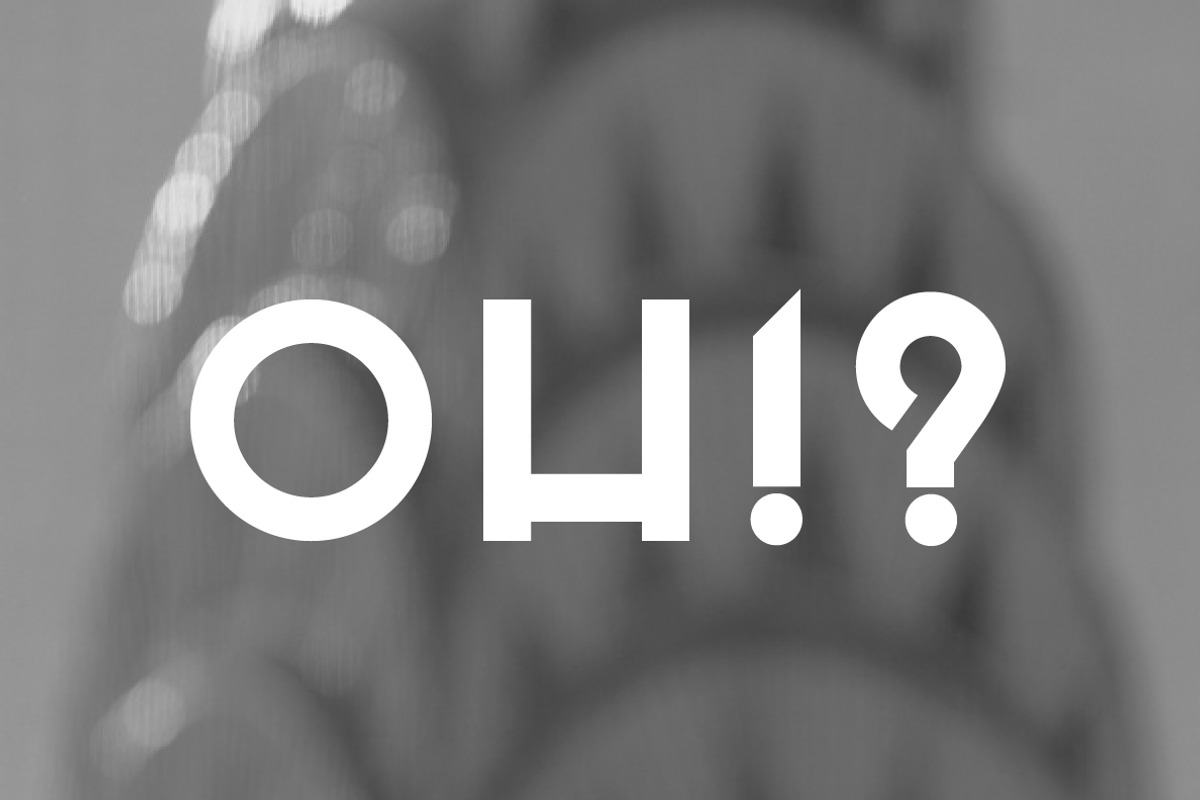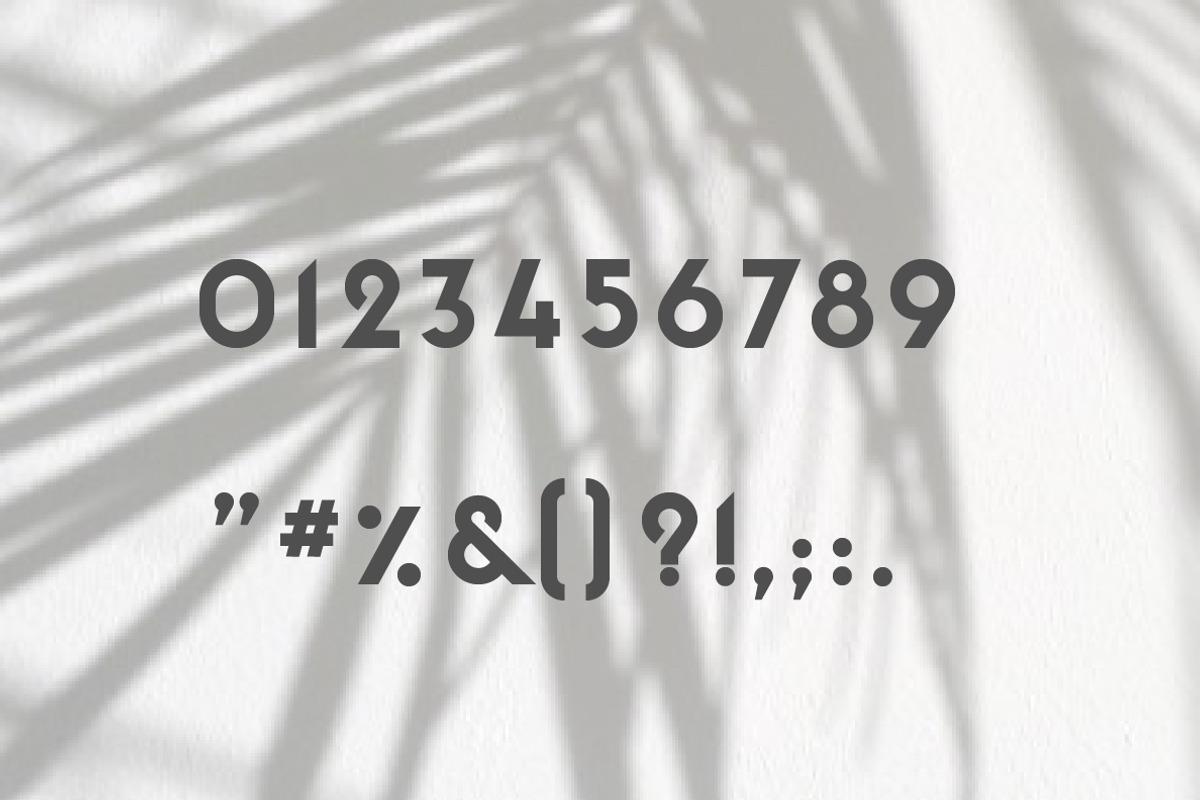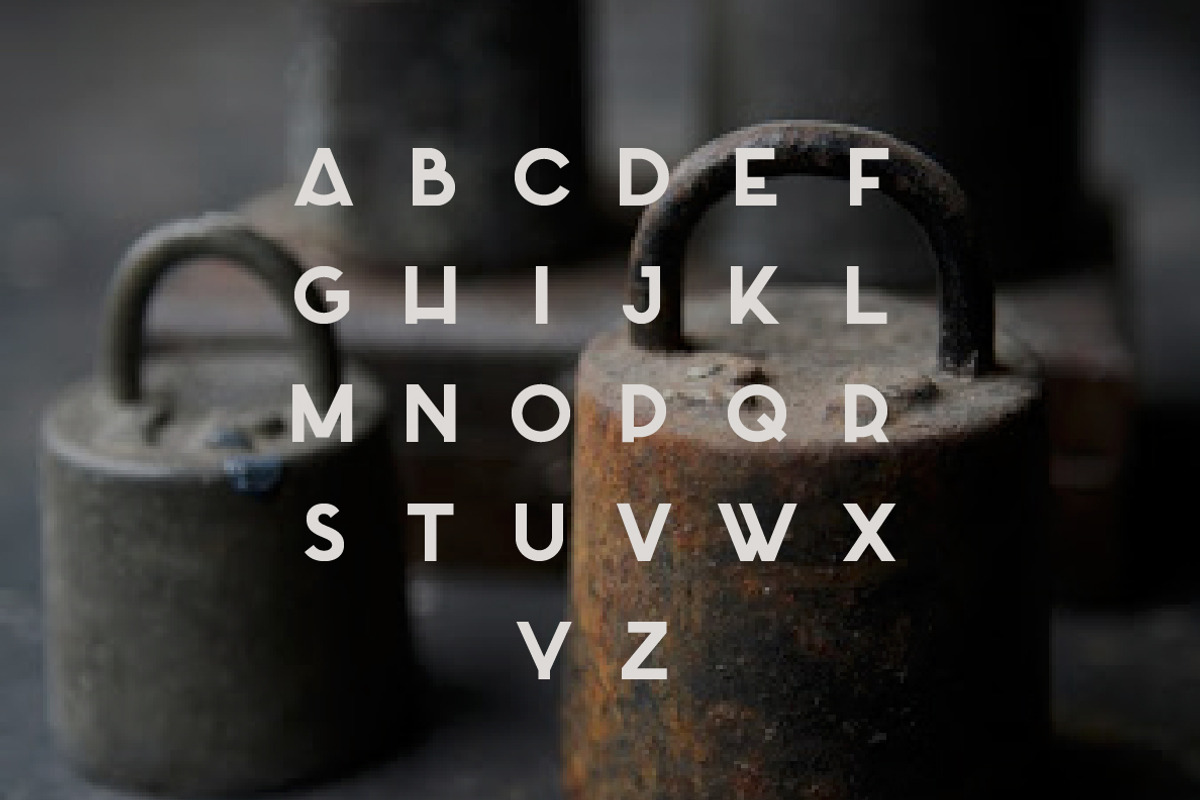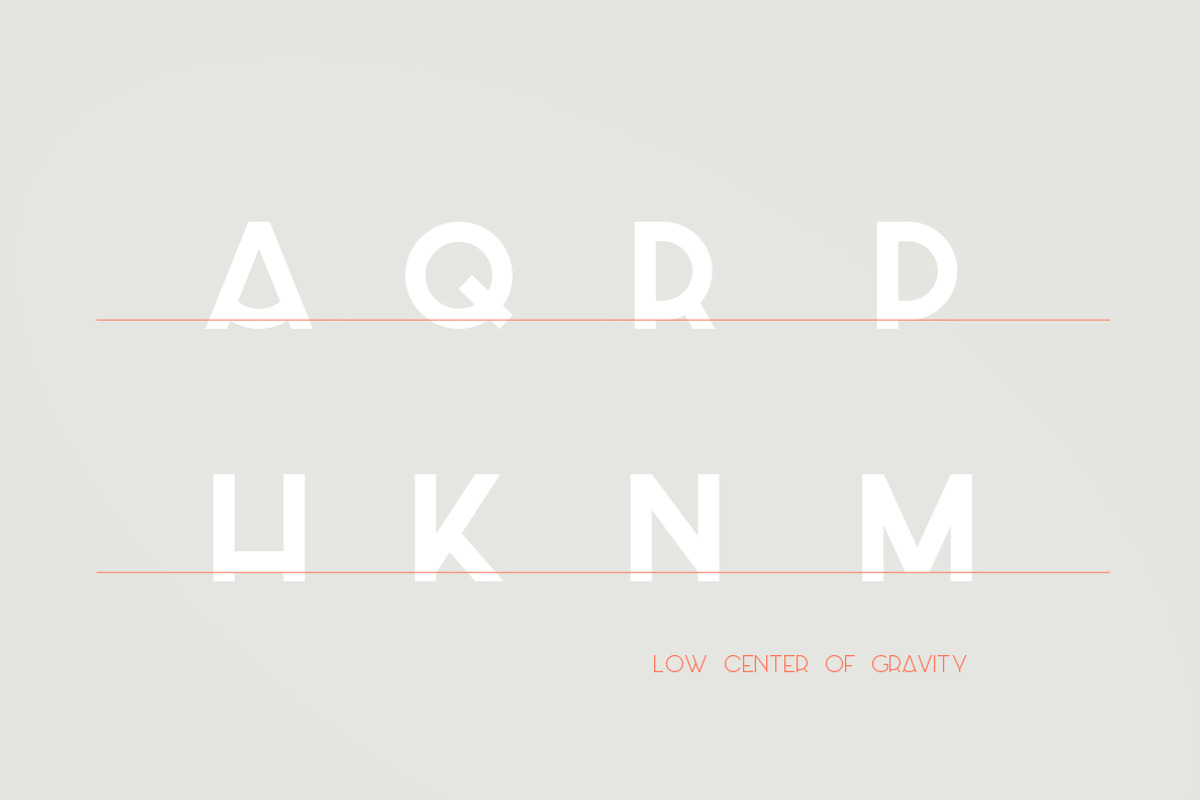
Azedo Font (full version)
Azedo Font (full version) by Pedro Azedo is a font selected for branding, posters, packaging, typography.
Azedo Font (full version) by Pedro Azedo fits naturally into Branding, posters, packaging, typography.